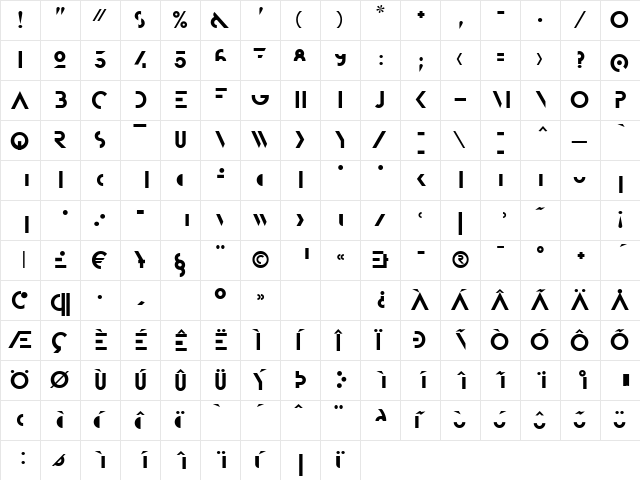
P22 Bifur C Regular
| Foundry | P22 / IHOF |
| Designer | Richard Kegler, AM Cassandre |
Design Context for P22 Bifur C Typeface
P22 Bifur C is a composed and adaptable typeface that performs quietly and consistently across a wide range of design contexts.